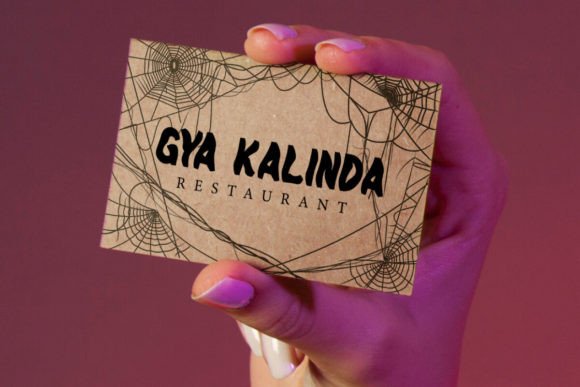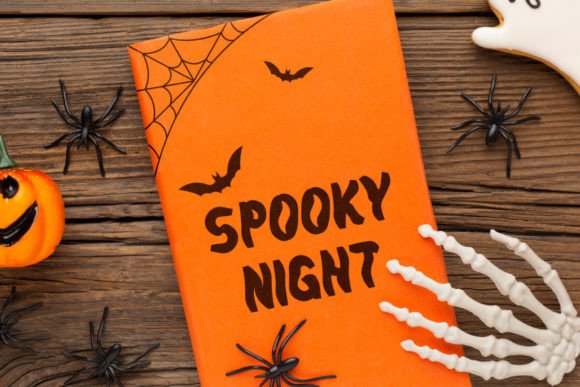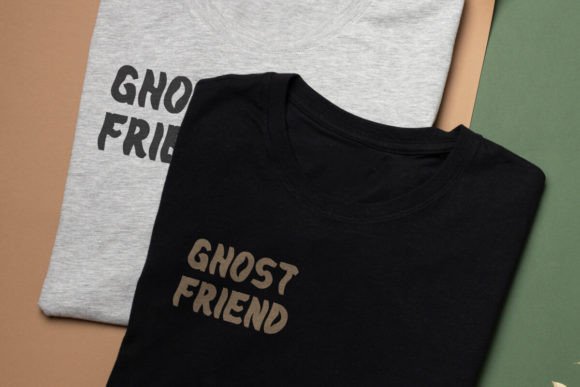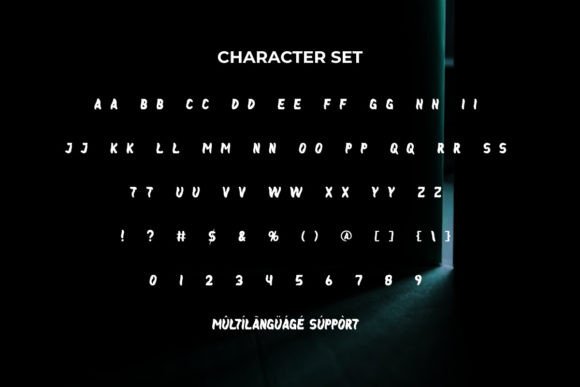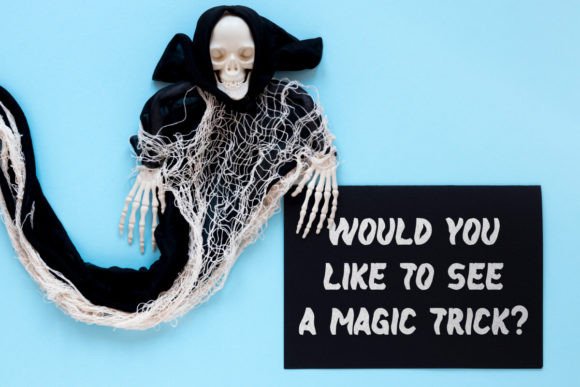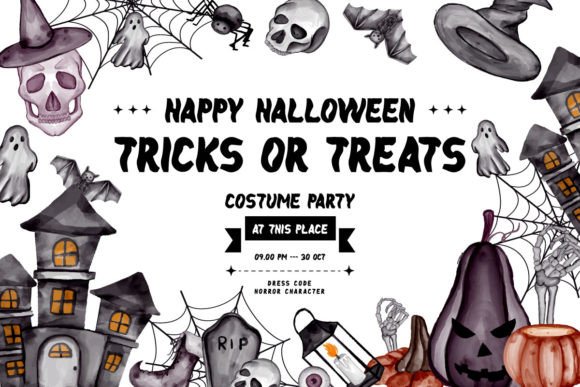
Unleash the Spook: Discover the Ghost Friend Font
Are you on the hunt for a font that embodies the spirit of Halloween or adds a touch of spookiness to your designs all year round? Look no further than the Ghost Friend Font, a fun and playful display font that is sure to cast a spell on your audience. With its unique blend of eerie and charming elements, this font is perfect for designers and crafters looking to add a dash of the paranormal to their projects.
The Essence of Ghost Friend Font
Ghost Friend Font is a display font that masterfully balances spooky themes with a playful vibe. Its distinctive look is characterized by whimsical letterforms that evoke the feeling of being haunted, yet in a non-threatening, friendly way. This font is not just about scares; it’s about adding character and personality to your designs. Whether you’re working on a brand logo, an invitation, or product packaging, Ghost Friend Font offers a versatile aesthetic that can adapt to various design needs.
One of the standout features of Ghost Friend Font is its versatility. This font isn’t limited to Halloween-themed projects; it can be used across a multitude of design types to add a unique flair. Here are some ideas on how you can use Ghost Friend Font:
- Brand Logo: Create a memorable logo that stands out with a touch of whimsy.
- Cover Design: Add a captivating element to book covers, magazine covers, or any other type of cover design.
- Business Card: Make your business cards more engaging and reflective of your brand’s personality.
- Custom Design: From bespoke illustrations to custom illustrations, this font can add a personalized touch.
- Invitation: Whether it’s for a Halloween party or a themed event, make your invitations stand out.
- Label and Menu: Perfect for food packaging, wine labels, or restaurant menus that need a unique selling point.
- Poster and Signage: Create eye-catching posters and signs for events, promotions, or informational purposes.
- Product Packaging: Elevate your product packaging to make it more appealing and distinctive.
- Quote and Website: Use it to highlight quotes on social media or add a personal touch to website headers and banners.
Why Choose Ghost Friend Font?
Choosing Ghost Friend Font for your design projects comes with several benefits:
- Unique Aesthetic: Offers a distinctive look that can set your designs apart.
- High Readability: Despite its playful and spooky theme, the font maintains high readability, making it suitable for a wide range of applications.
- Versatility: Can be used for both digital and print projects, offering flexibility in design applications.
Tips for Using Ghost Friend Font
To get the most out of Ghost Friend Font, consider the following tips:
- Mix and Match: Combine it with other fonts for contrast, but ensure readability is maintained.
- Play with Colors: Experiment with different colors, especially those that complement a spooky or autumnal theme.
- Adjust Size and Weight: Depending on your design, adjusting the size and weight of the font can help emphasize certain elements.
- Context is Key: Consider the context of your design and adjust the use of the font accordingly to ensure it aligns with the overall message.
Ghost Friend Font is more than just a font; it’s a design element that can bring a unique personality to your projects. Its blend of spookiness and playfulness makes it an excellent choice for designers and crafters looking to add a touch of the extraordinary to their work. Whether you’re preparing for Halloween or just want to infuse your designs with a bit of whimsy, Ghost Friend Font is an asset that can help you achieve your creative goals.